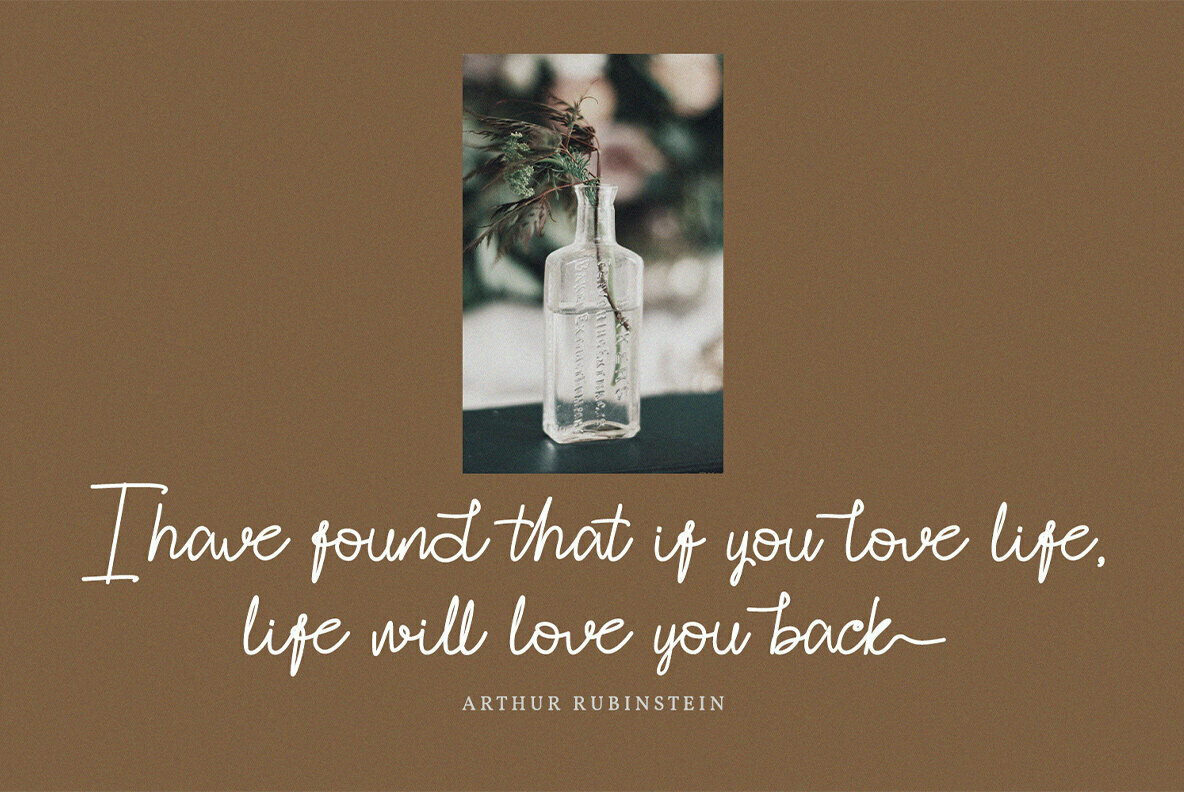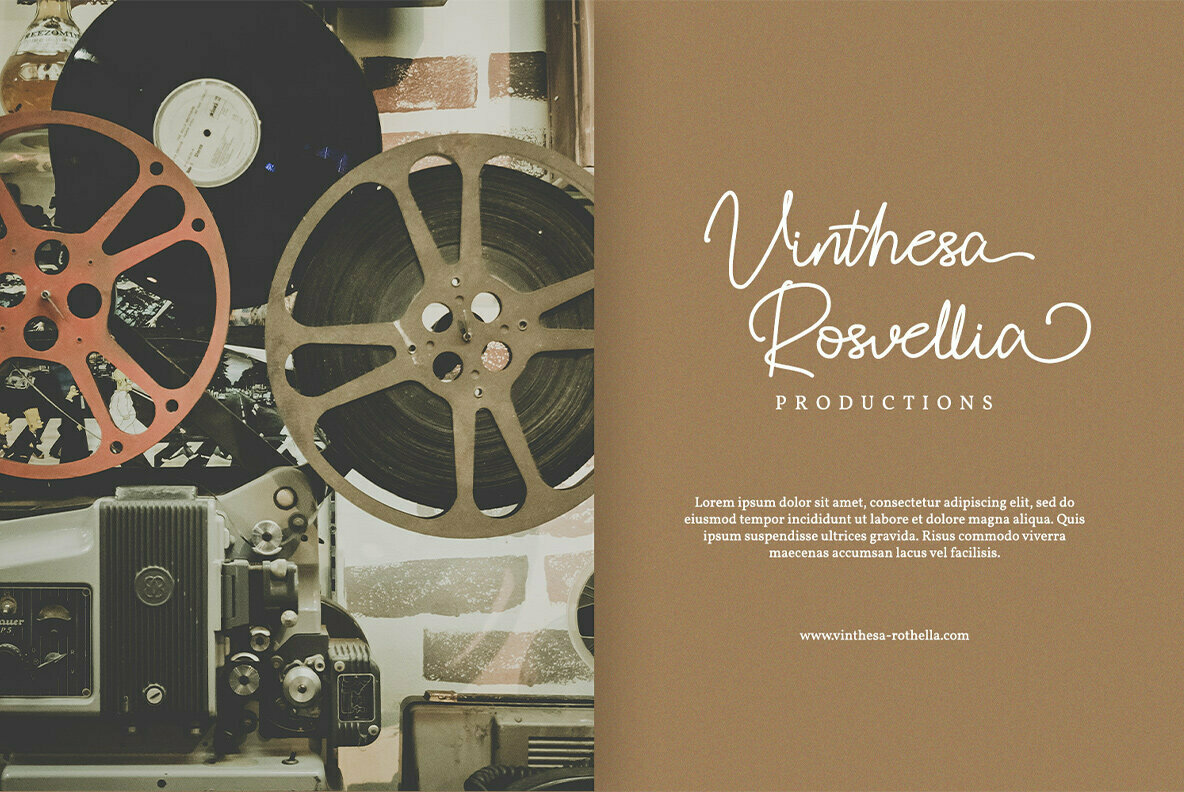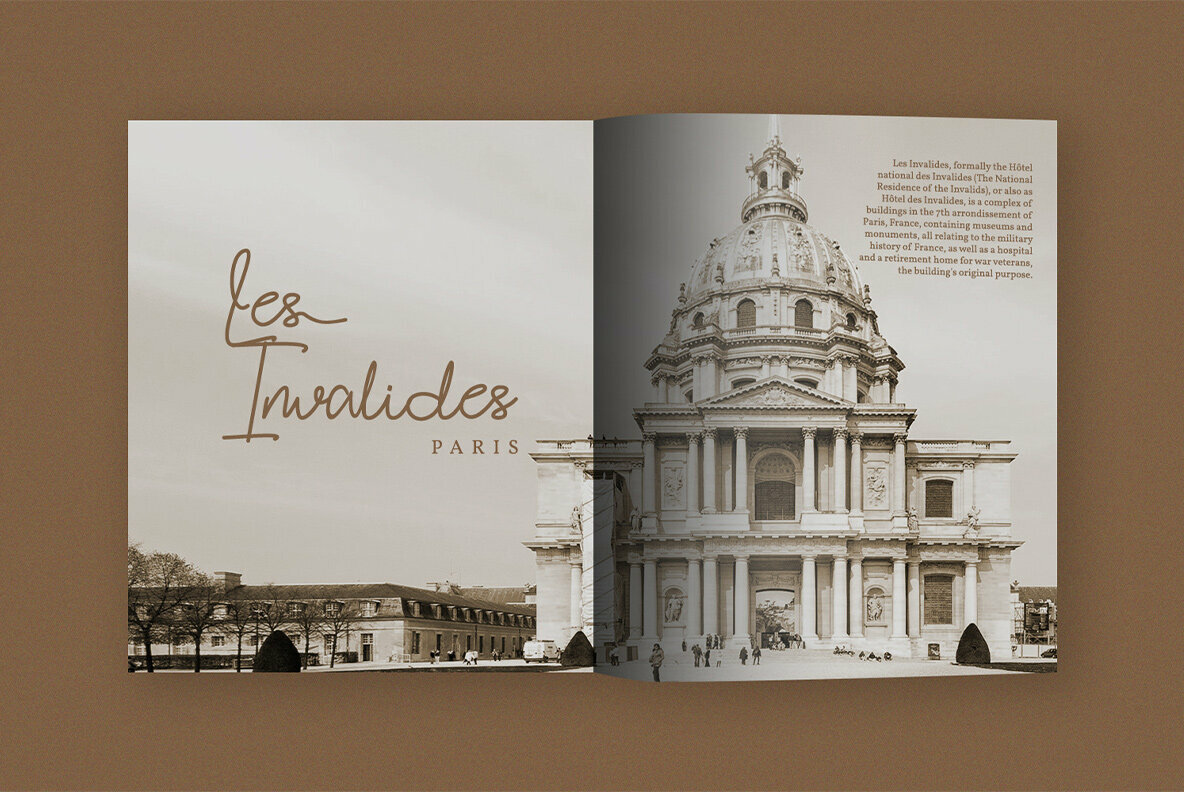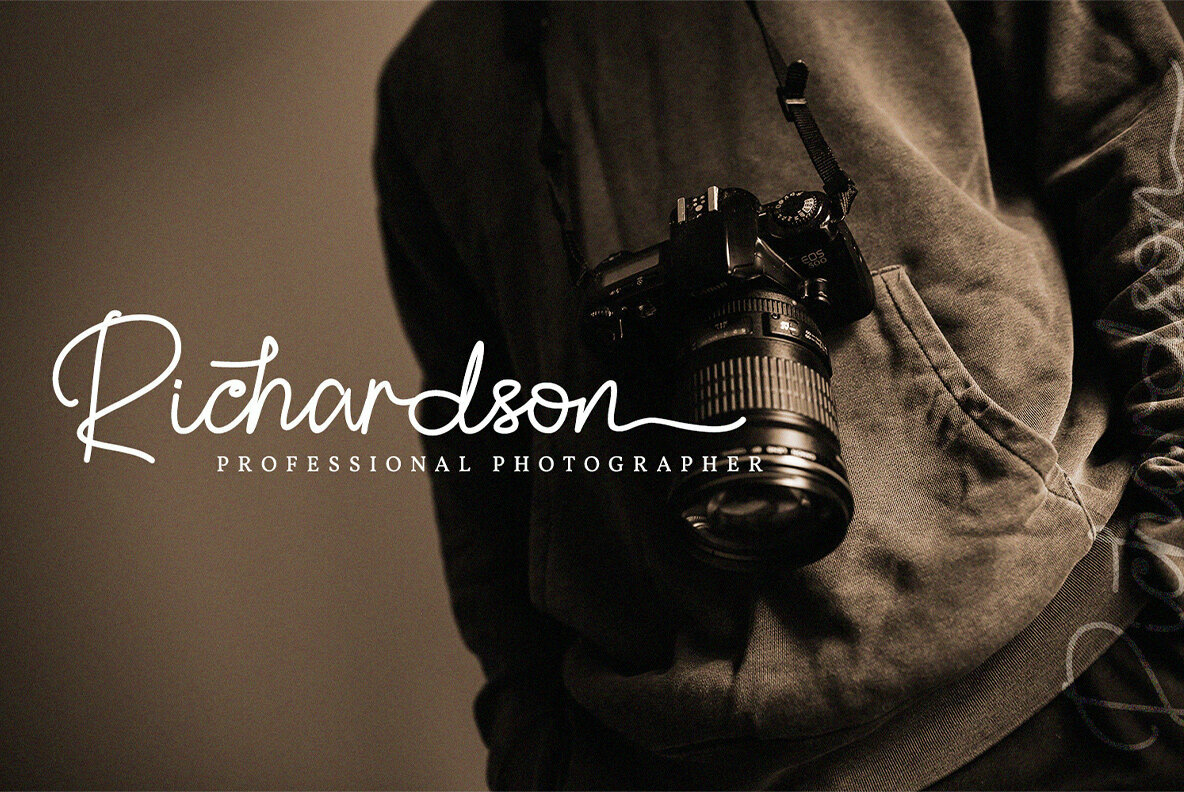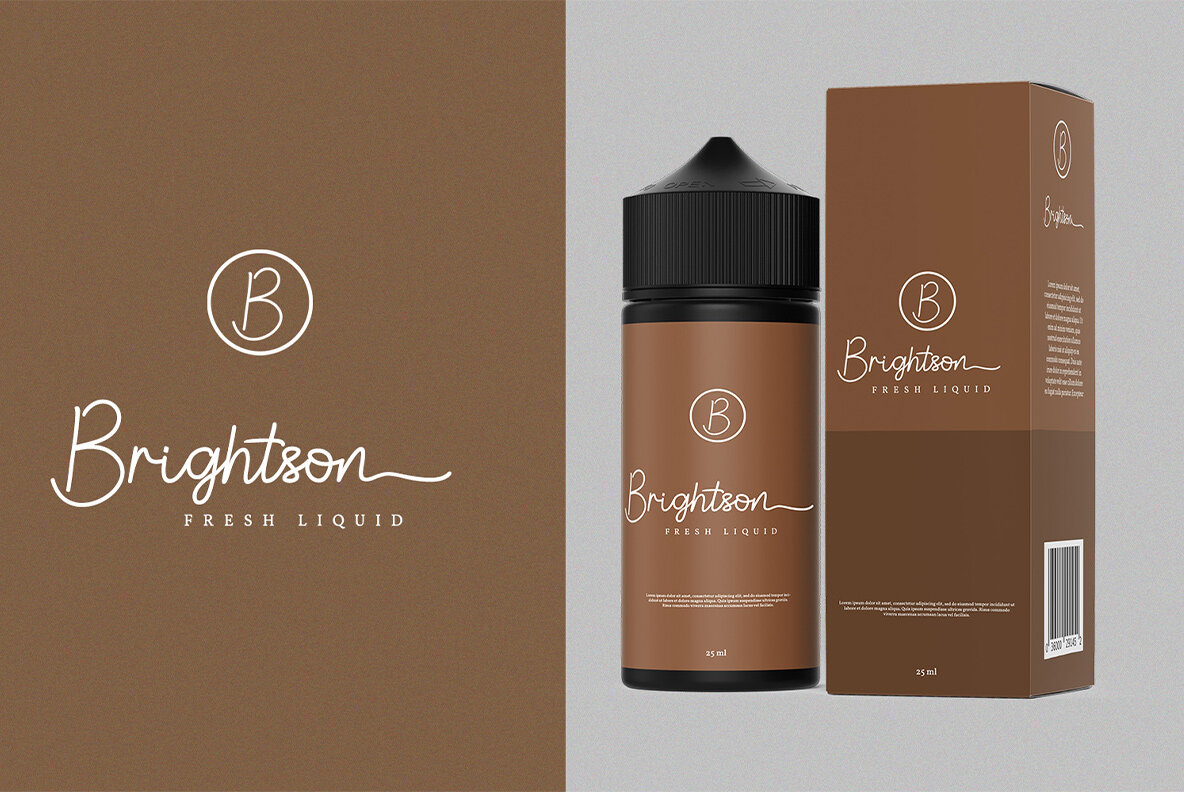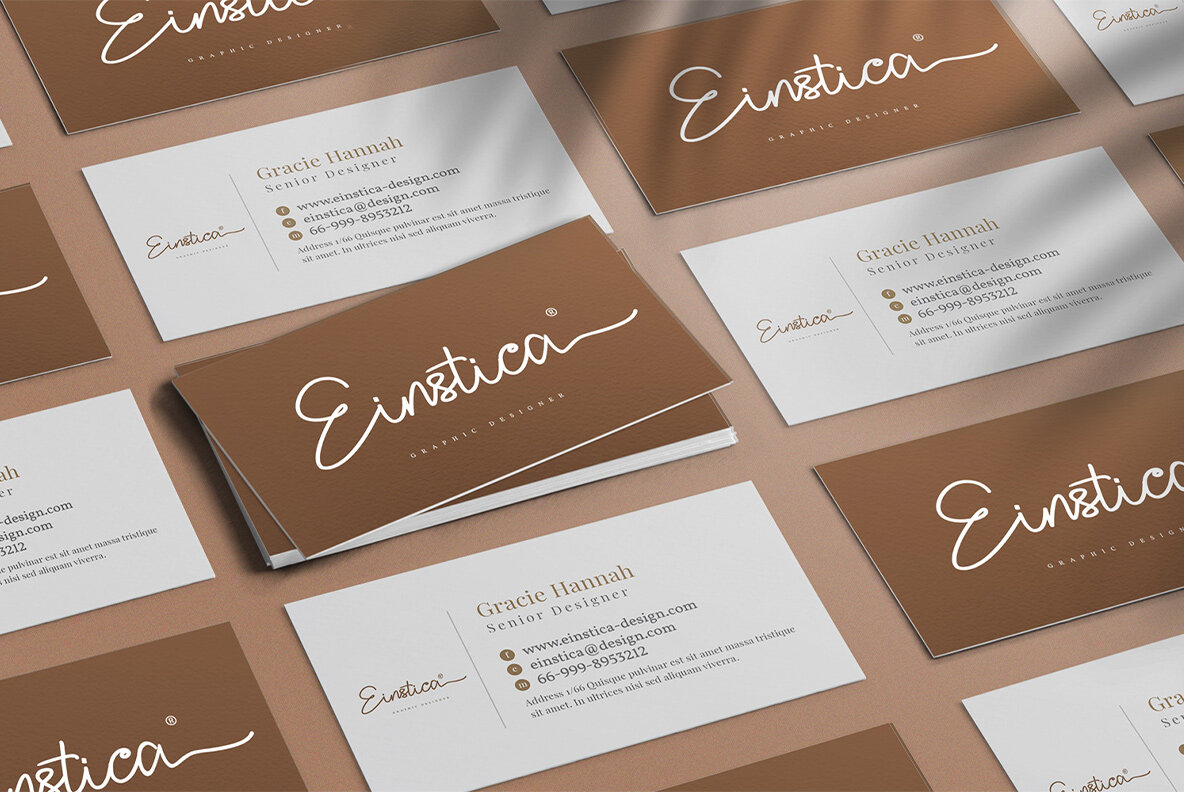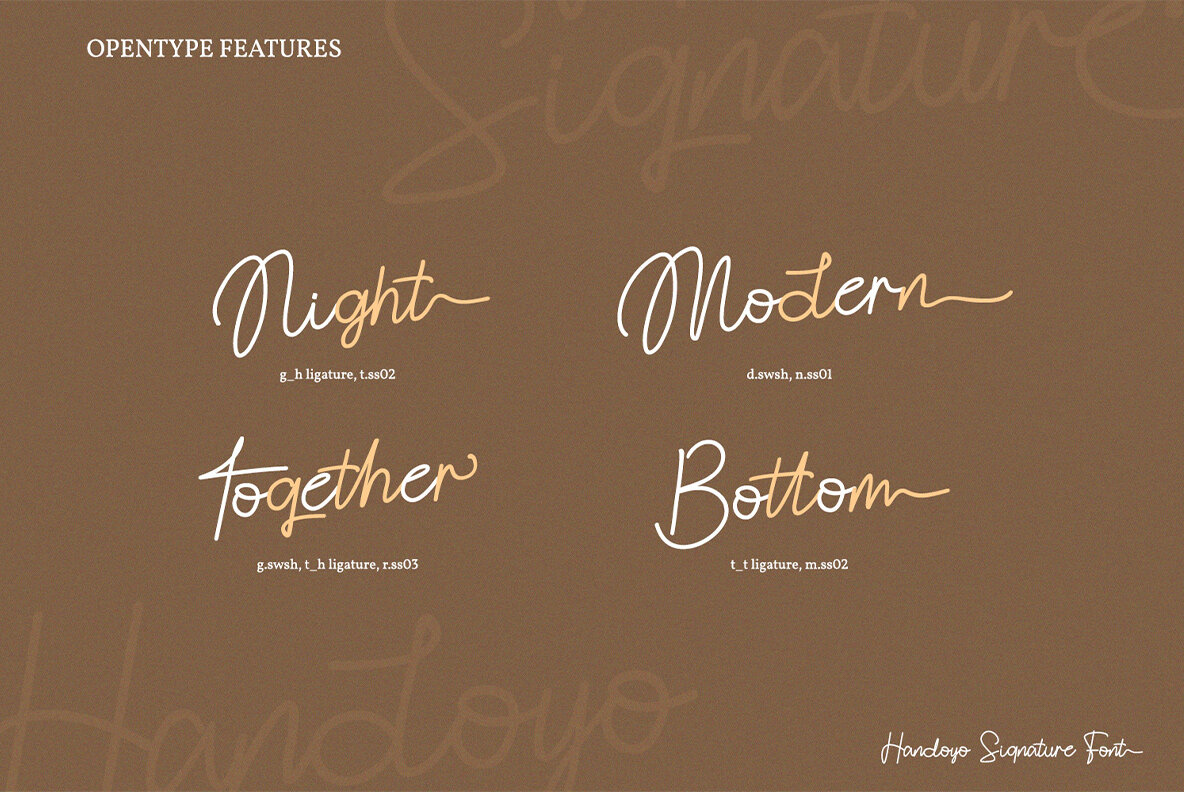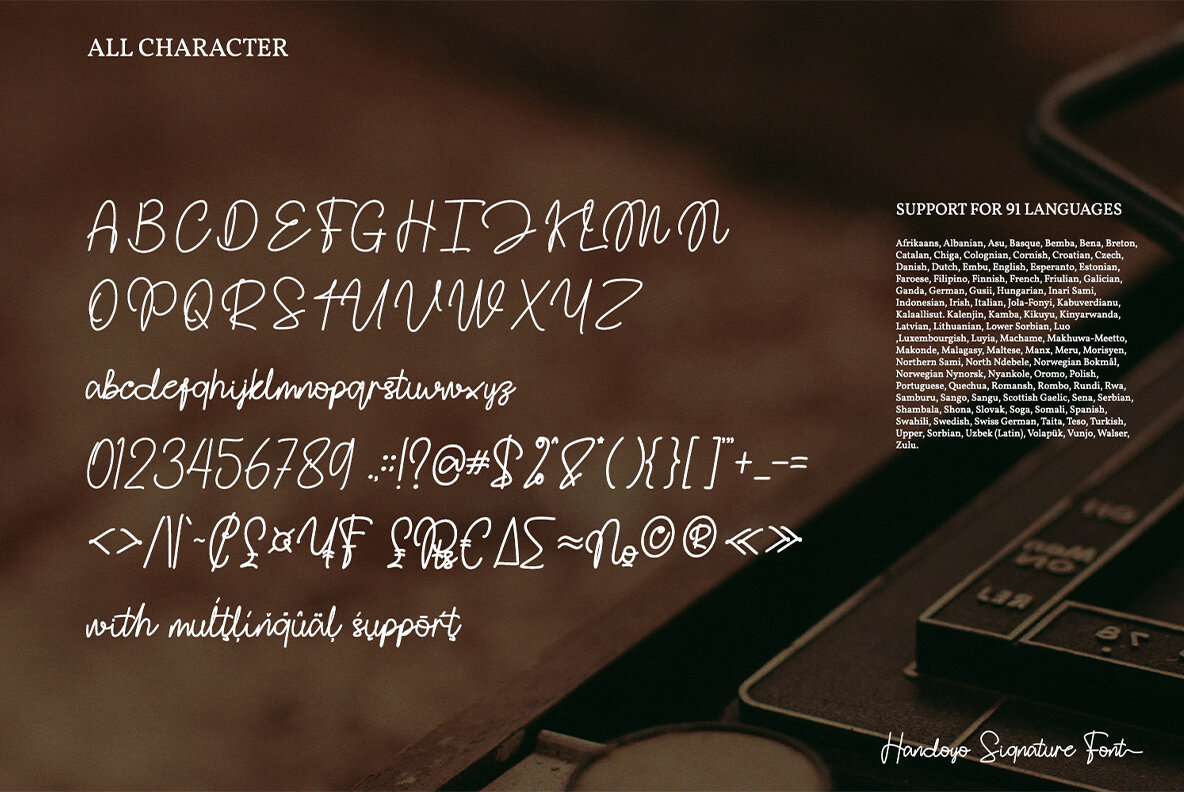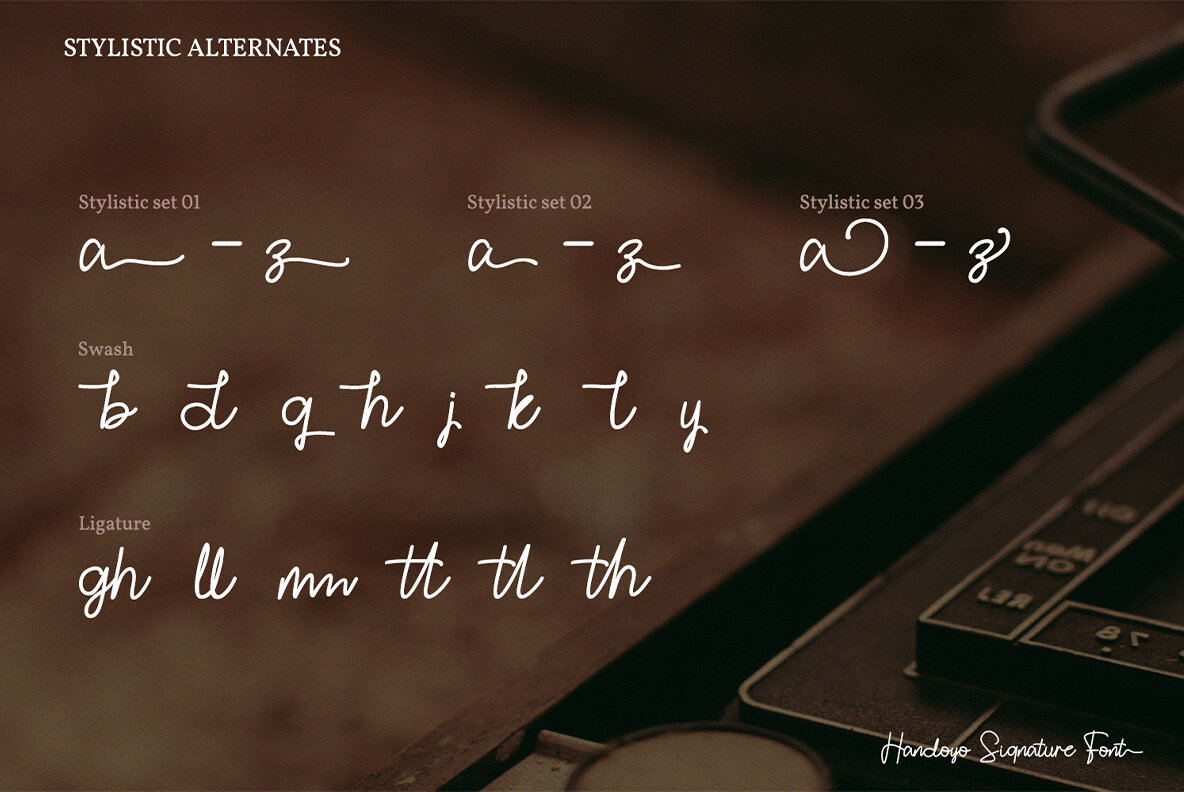
Handoyo Signature Font
Handoyo Signature
The Handoyo Signature font represents a fusion of modernity and elegance, each stroke and curve crafted to bring out a refined yet stylish look. Ideal for diverse applications, from social media posts to printed quotes and packaging to trendy t-shirt designs. Handoyo Signature’s versatility adds a sophisticated touch as an overlay for background images. Embrace the international appeal with its multilingual options, ensuring your branding resonates globally. Enhance your design projects by utilizing this font's intrinsic ability to captivate audiences across various mediums.Handoyo Signature: A Modern Handcrafted Elegance